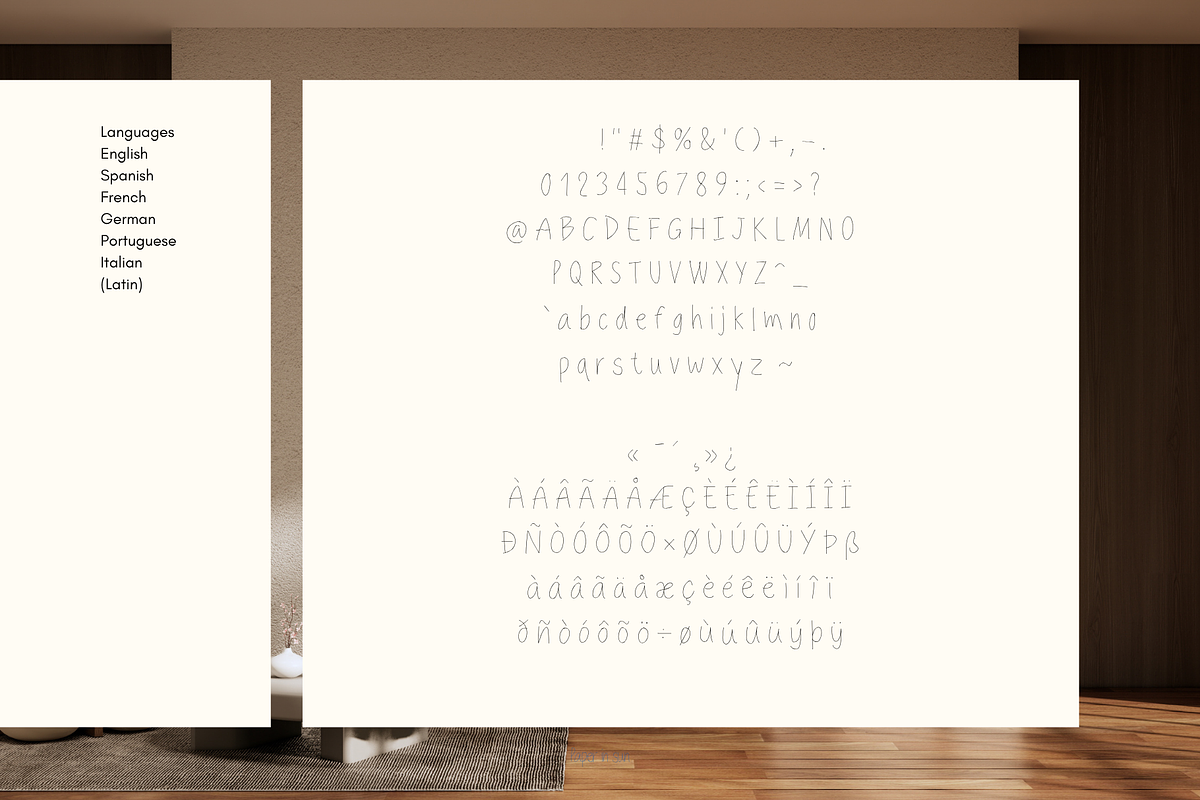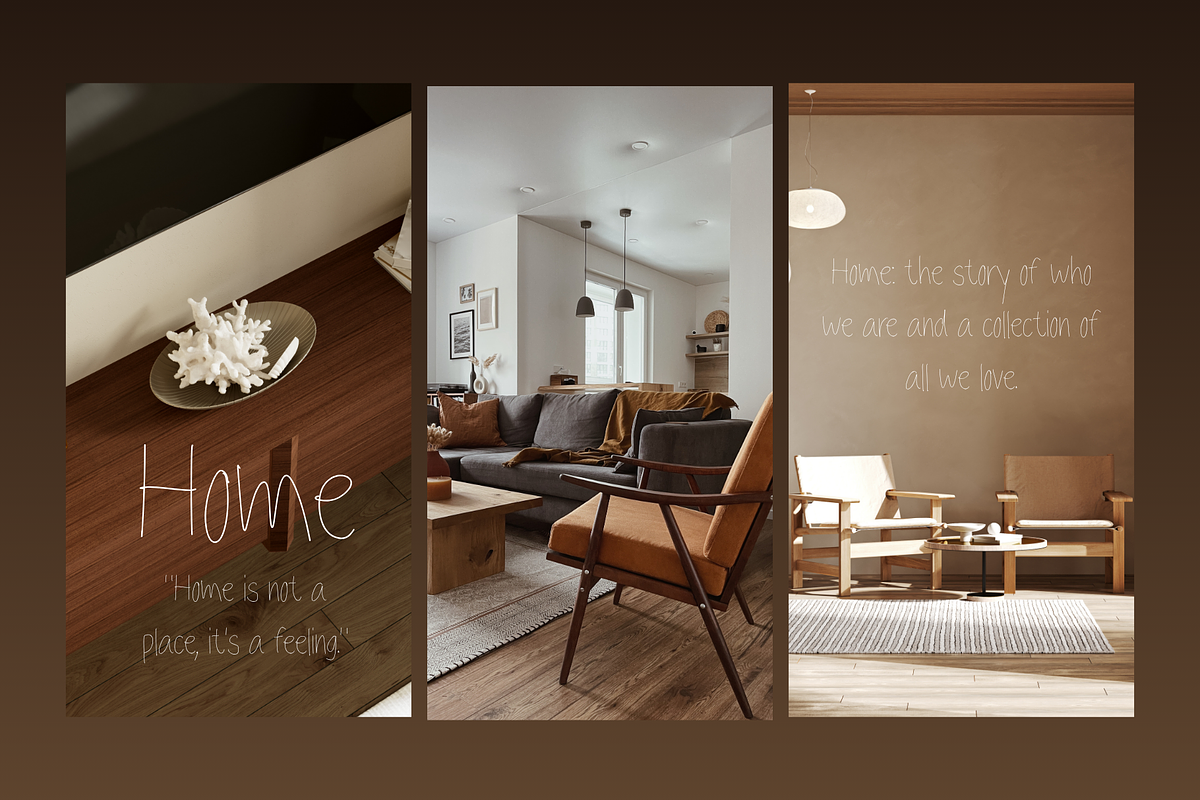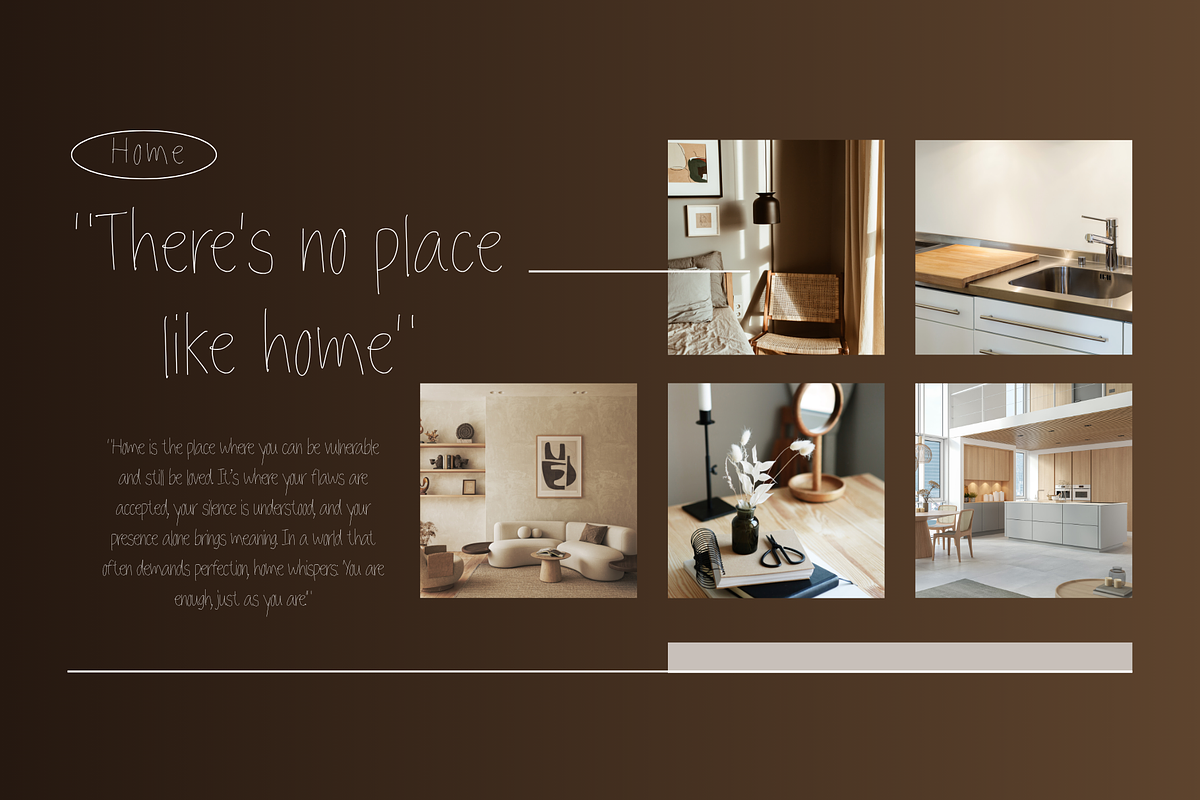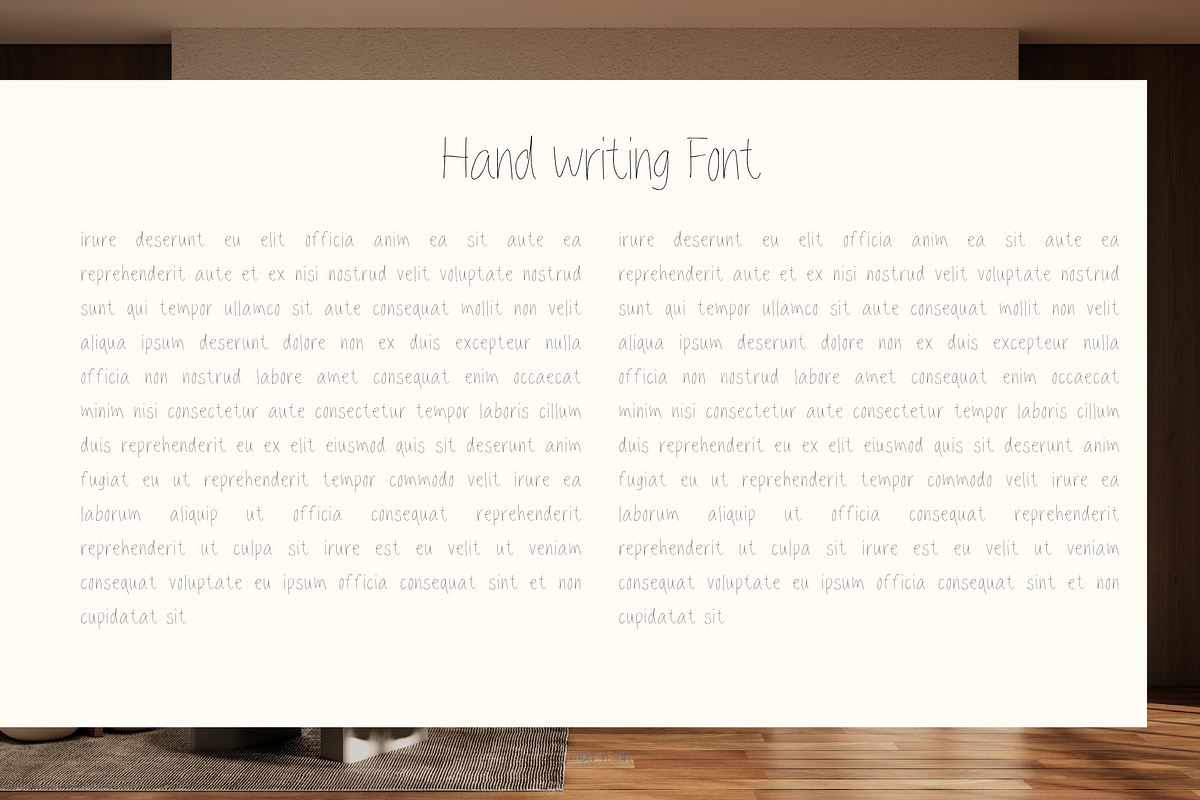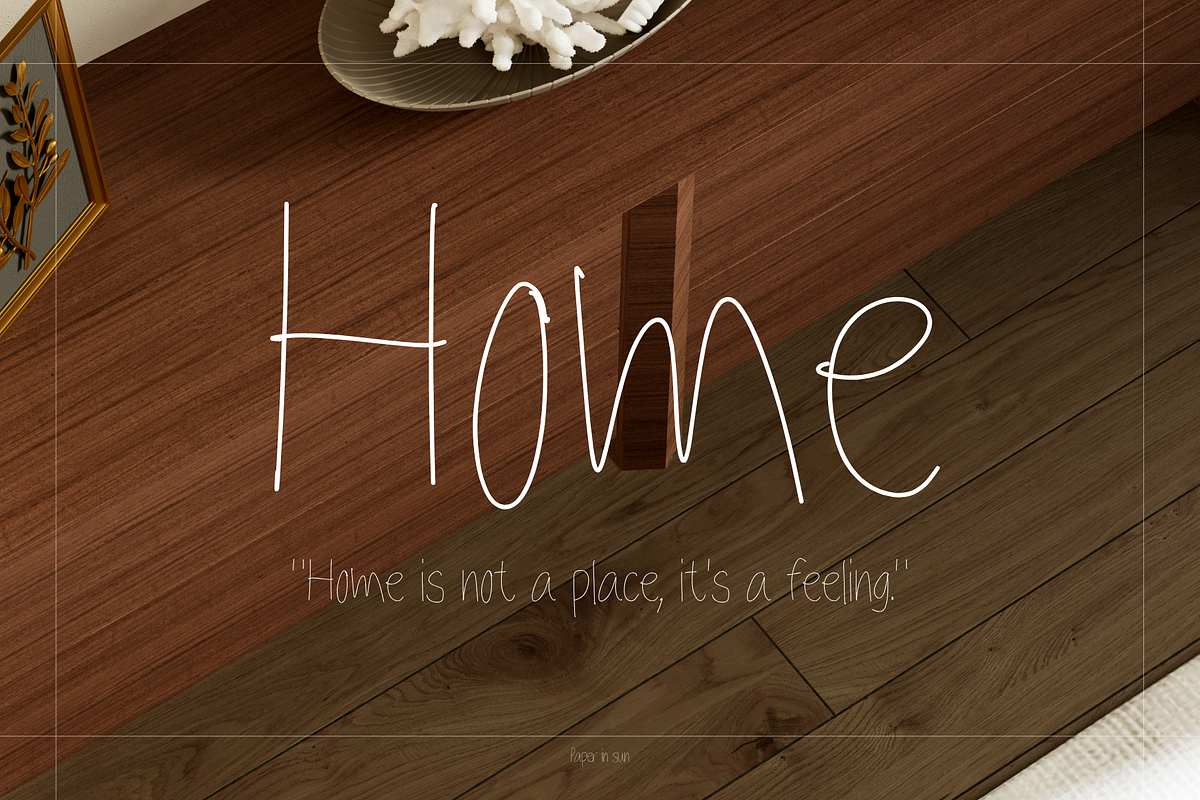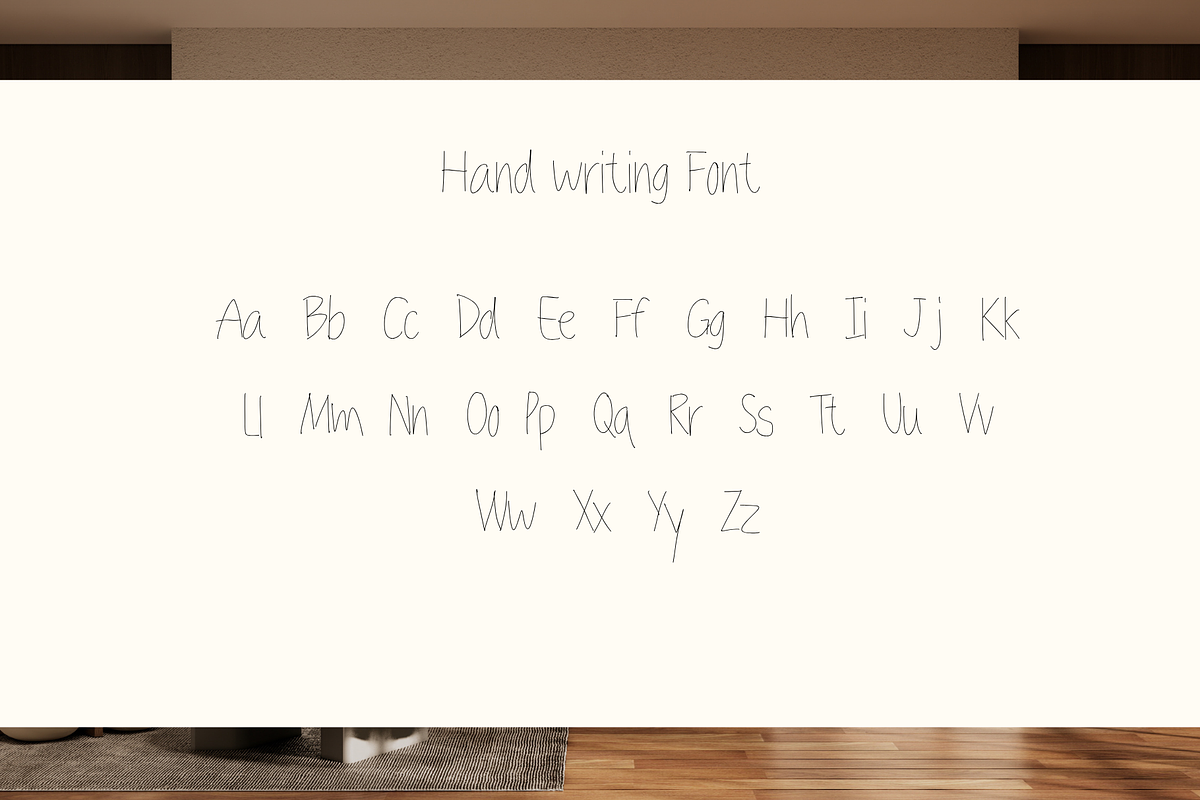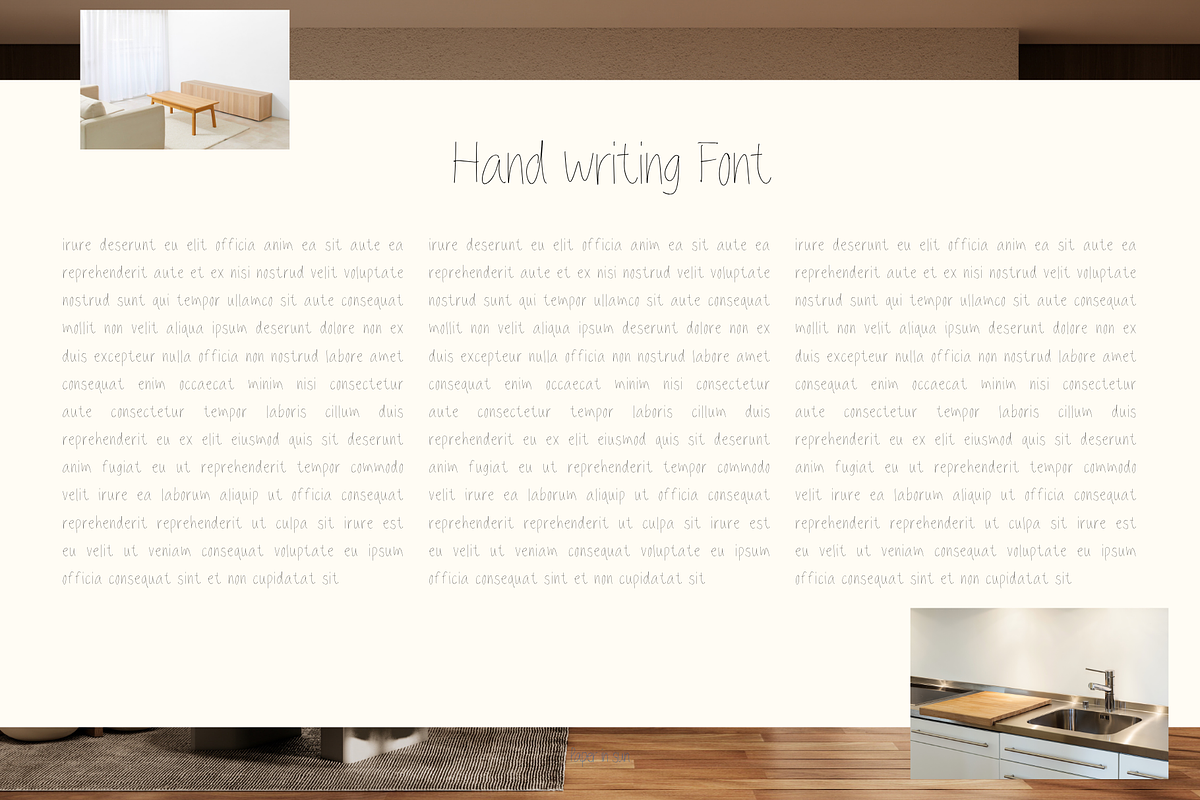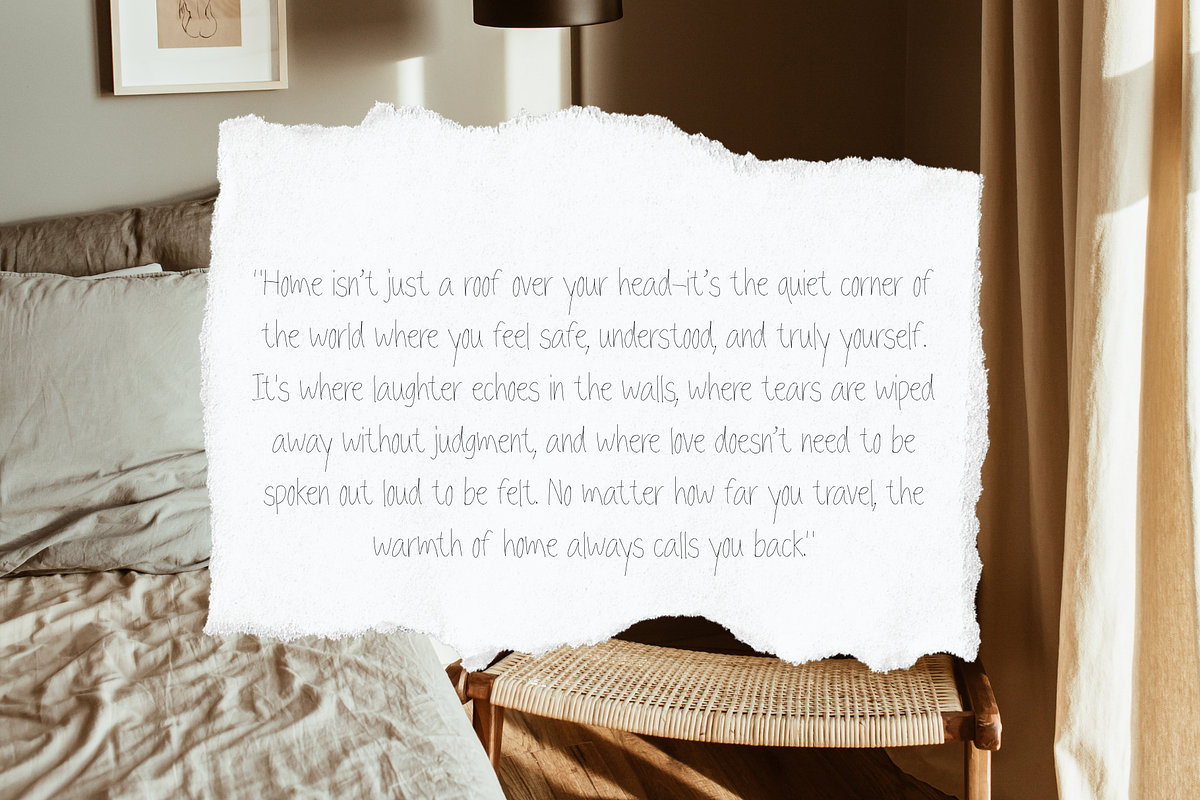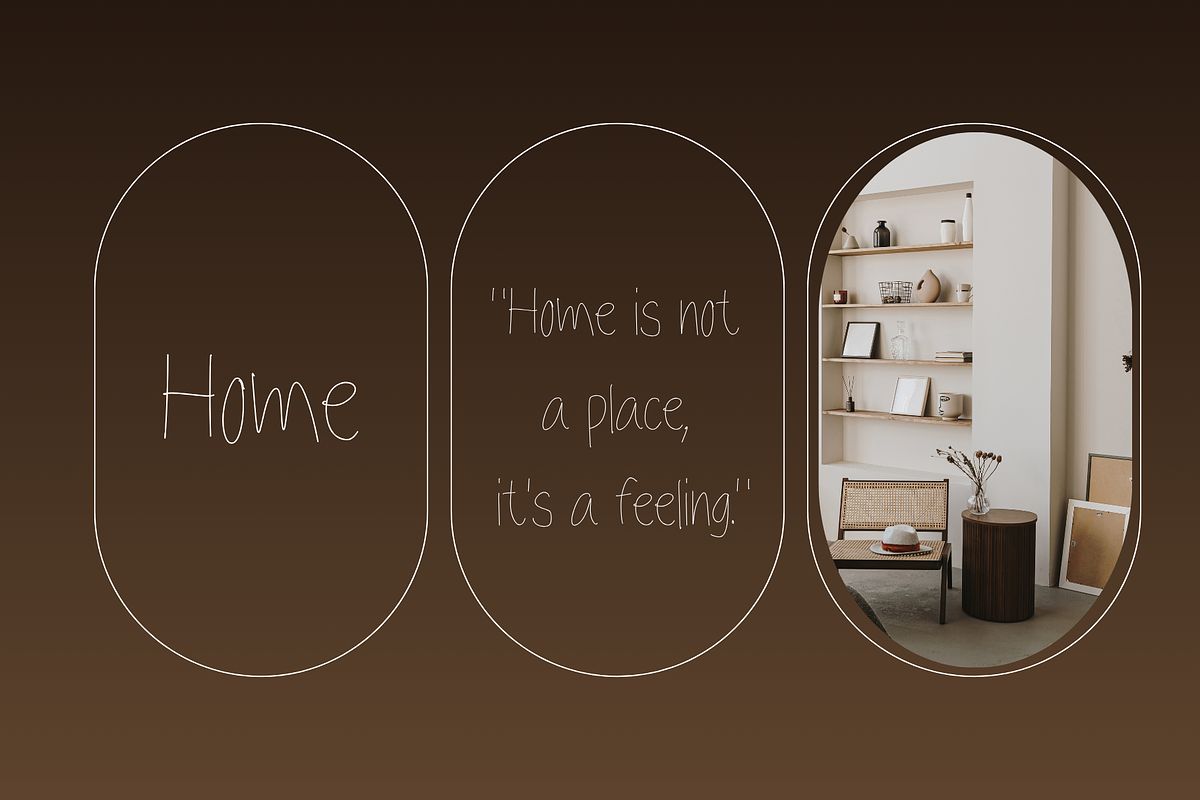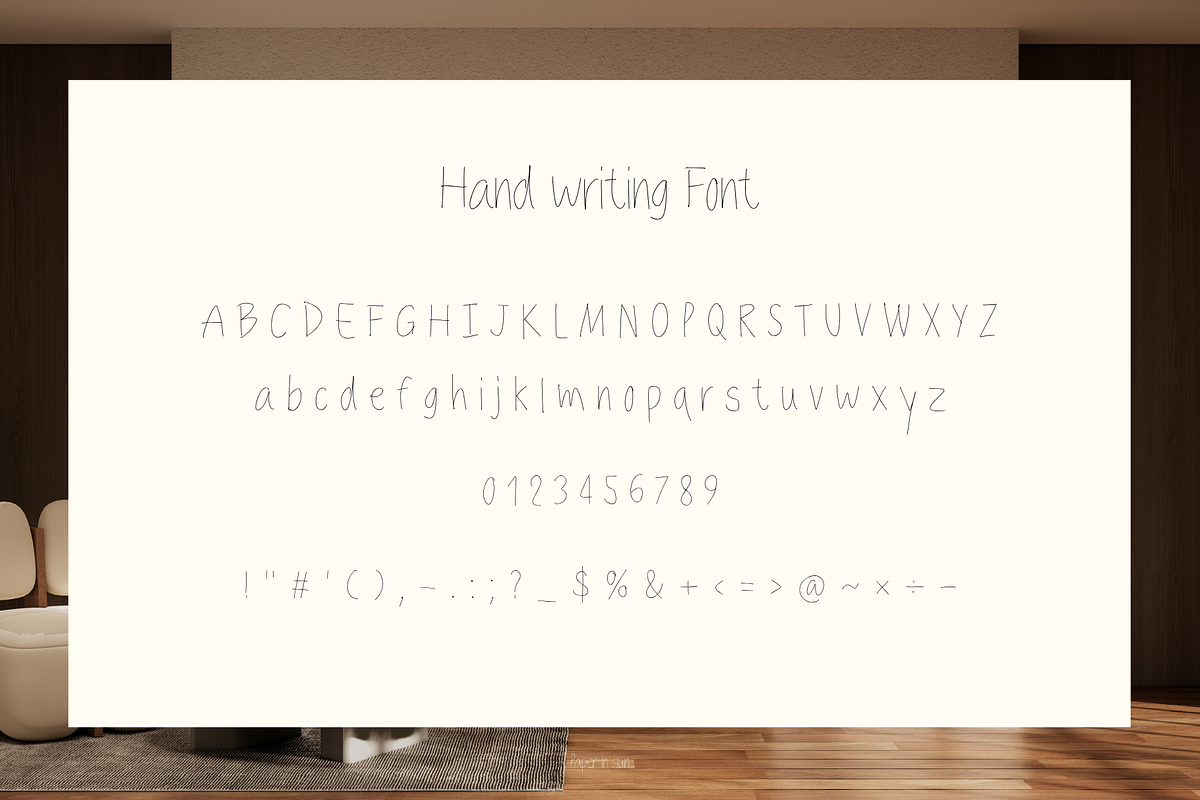
Home - Handwriting Font
Home - Handwriting Font hand-drawn typeface designed to look intentionally imperfect, bringing a touch of warmth and personality to any project. Its simple yet adorable style makes it perfect for designs that call for a friendly and playful tone.
- cards
- Invitations
- Social media graphics
- DIY and craft projects
- Cute, hand-lettered style full of character
- English Spanish French German Portuguese Italian (Latin)
- Includes uppercase and lowercase letters (A–Z, a–z) and numbers
- Great for both print and digital designs